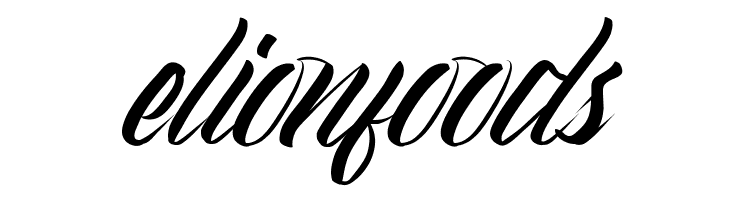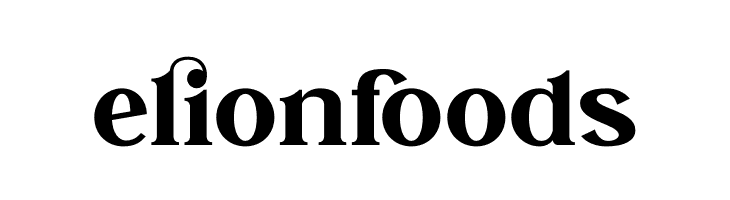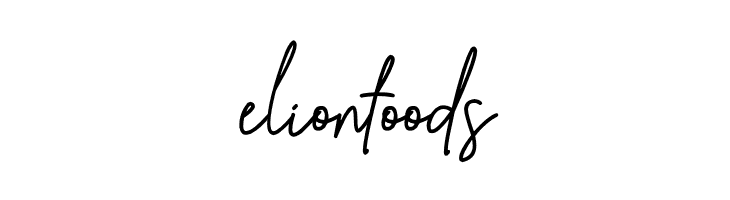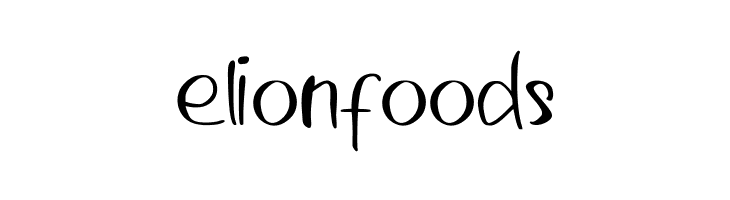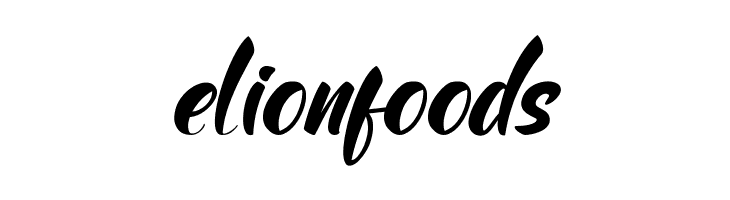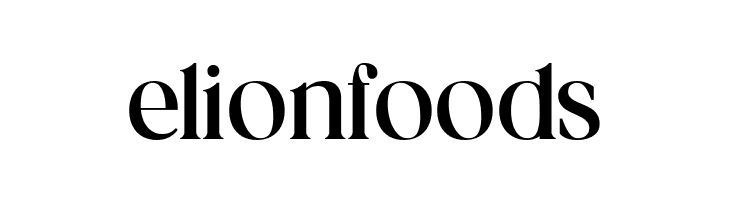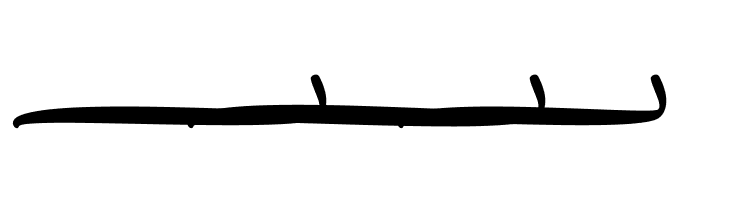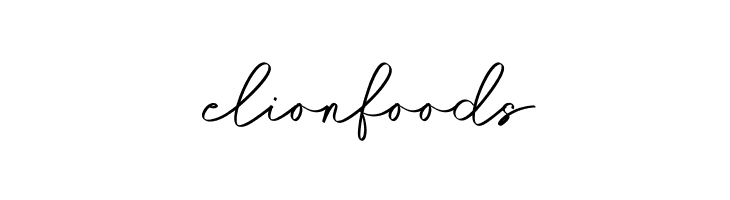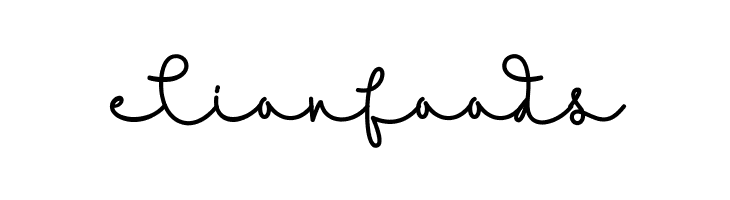
An elegant, handwritten cursive font with fluid, elongated strokes.
A bold, flowing script font with high contrast and dynamic elegance.
A classic serif font with bold strokes and high contrast, exuding elegance and tradition.
A fluid, handwritten-style font with a casual elegance.
A lively handwritten font with expressive, fluid strokes and a casual elegance.
A dynamic and expressive script font with fluid, flowing letterforms and high contrast.
A classic serif font with modern elegance and refined letterforms.
A decorative font with elongated, flowing swashes and a calligraphic style.
A graceful script font with fluid, handwritten elegance.
A playful and whimsical script font with interconnected letters and a charming looped design.